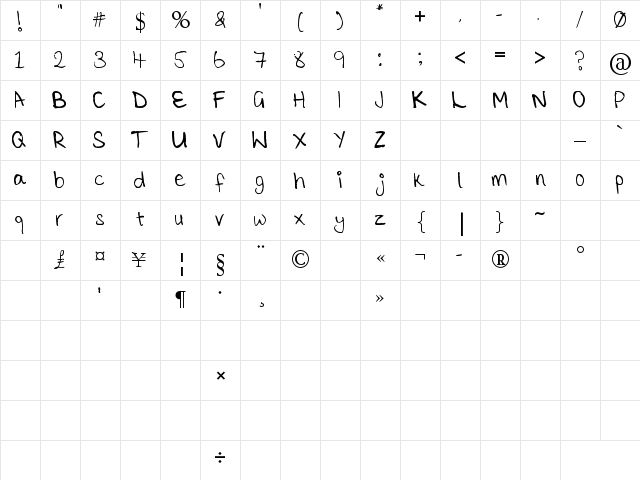
Complete Tickle Me Elmo Regular glyph index. Displaying only characters natively supported by Tickle Me Elmo Regular font.
Tickle Me Elmo is a composed and adaptable typeface that performs quietly and consistently across a wide range of design contexts.